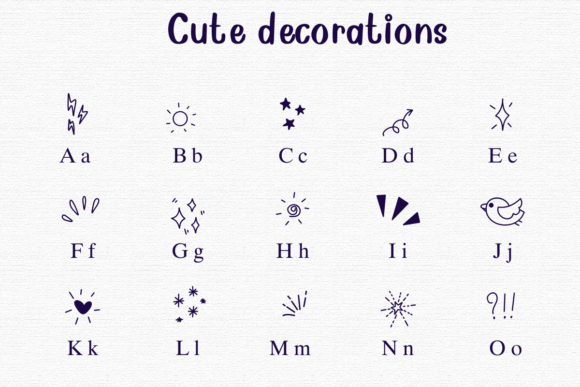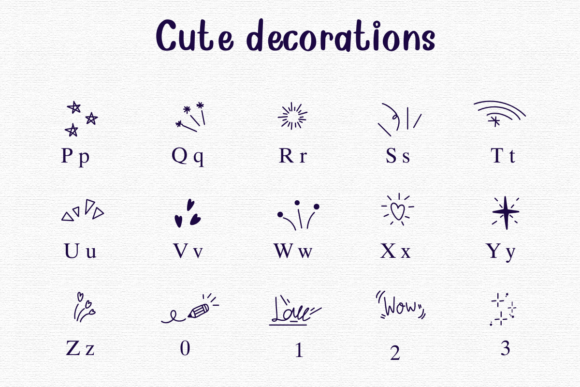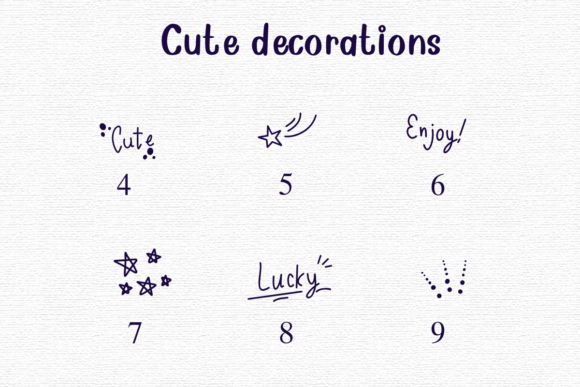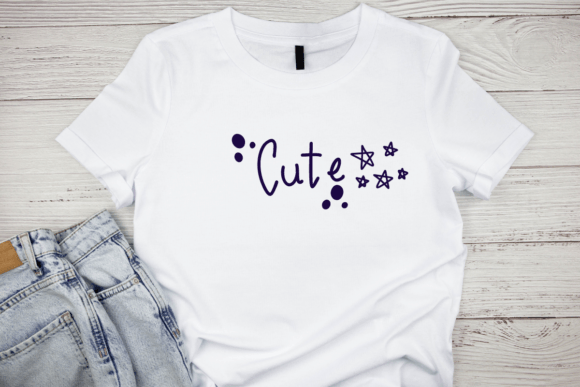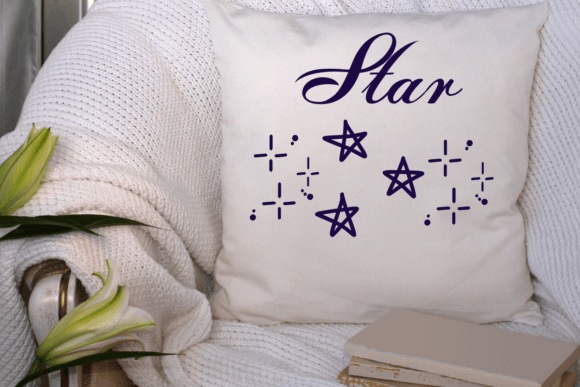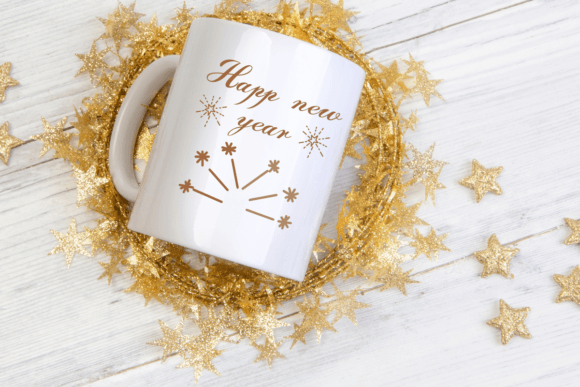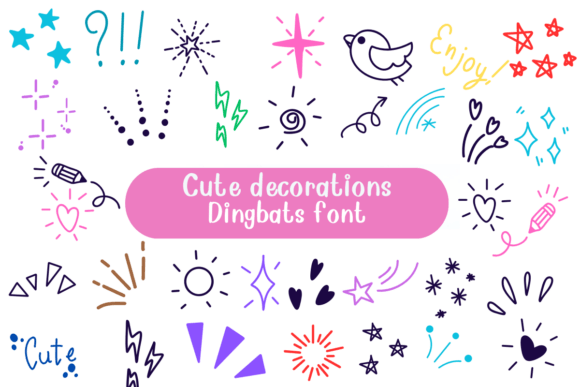
Cute Decorations Font: Elevate Your Designs with a Sketched Charm
Are you a designer, crafter, or DIY enthusiast looking for a unique and playful font to add a personal touch to your projects? Look no further than Cute Decorations, a delightful dingbats font with a sketched theme. This versatile font is perfect for a wide range of creative applications, from wedding invitations and decorations to logos, crafts, and more.
What is Cute Decorations Font?
Cute Decorations is a dingbats font that features a charming, hand-sketched design. The font is made up of intricate illustrations and doodles that can add a touch of whimsy and personality to any project. With its unique and playful style, Cute Decorations is sure to make your designs stand out from the crowd.
Uses for Cute Decorations Font
The possibilities are endless when it comes to using Cute Decorations font. Here are just a few ideas to get you started:
- Wedding Invitations: Add a touch of elegance and whimsy to your wedding invitations with Cute Decorations font. Use it to create custom illustrations, borders, and other design elements that will make your invitations truly special.
- DIY Projects: Whether you’re making handmade cards, gift tags, or other crafts, Cute Decorations font is the perfect choice. Use it to add a personal touch to your projects and make them truly unique.
- Decorations: From party decorations to home decor, Cute Decorations font can add a playful touch to any project. Use it to create custom signs, banners, and other decorative elements that will make your space truly special.
- Logos and Branding: If you’re looking for a unique and memorable logo for your business or brand, Cute Decorations font is a great choice. Use it to create a custom logo that reflects your brand’s personality and style.
Benefits of Using Cute Decorations Font
So why choose Cute Decorations font for your next project? Here are just a few benefits of using this versatile and charming font:
- Unique and Playful Style: Cute Decorations font features a one-of-a-kind, hand-sketched design that will add a touch of personality to any project.
- Versatile: Whether you’re working on a wedding invitation, DIY project, or logo, Cute Decorations font is the perfect choice.
- Scalable: Cute Decorations font is scalable to any size, making it perfect for a wide range of applications, from business cards to billboards.
Tips for Using Cute Decorations Font
Here are a few tips for getting the most out of Cute Decorations font:
- Experiment with Different Sizes and Colors: Don’t be afraid to try out different sizes and colors with Cute Decorations font. This will help you find the perfect look for your project.
- Combine with Other Fonts: Cute Decorations font pairs well with a wide range of other fonts. Try combining it with a bold font for a striking contrast.
- Use as a Design Element: Cute Decorations font is more than just a font – it’s a design element. Use it to create custom illustrations, borders, and other design elements that will make your project truly special.
Cute Decorations font is a versatile and charming dingbats font with a sketched theme. With its unique and playful style, it’s perfect for a wide range of creative applications, from wedding invitations and DIY projects to logos and decorations. Whether you’re a designer, crafter, or DIY enthusiast, Cute Decorations font is sure to elevate your designs and add a personal touch to your projects.